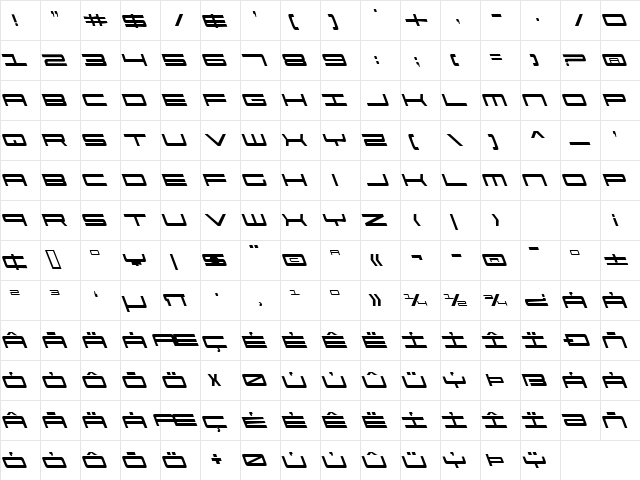
911 Porscha Leftalic Leftalic
Design Context for 911 Porscha Leftalic Typeface
911 Porscha Leftalic is a composed and adaptable typeface that performs quietly and consistently across a wide range of design contexts. The slanted form adds forward momentum and visual energy.
Pro Tip: Try 911 Porscha Leftalic for annotation and caption copy alongside an upright companion — the contrast in angle creates a dynamic but ordered typographic system.